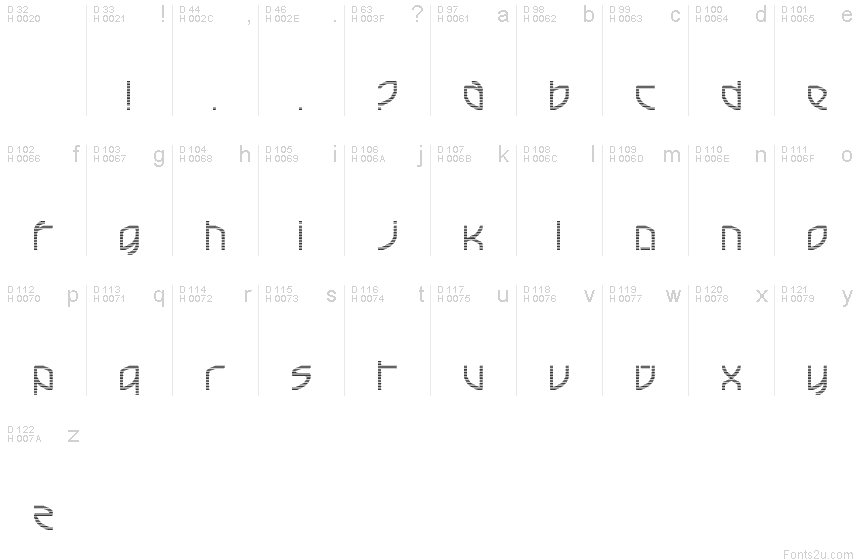
French Electric - Techno Regular
"A new, less experimental font, again based around curves, but with a more rounded and asymetrical design than previously, inspiration coming from "New York" and "The Elements" as well as some outsider fonts, such as "Freak Turbulance".
Included in the package are 2 fonts. The one shown above is the Techno version with horizontal stripes, wheras the original is just normal."
Made in 2009.